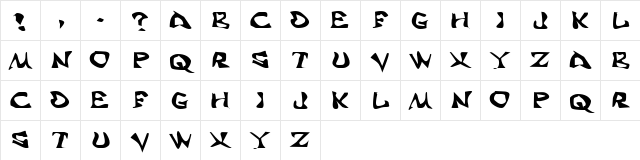
Aaah Normal Free Font
Aaah Normal
Design Context for Aaah
Aaah is a composed and adaptable typeface that performs quietly and consistently across a wide range of design contexts.